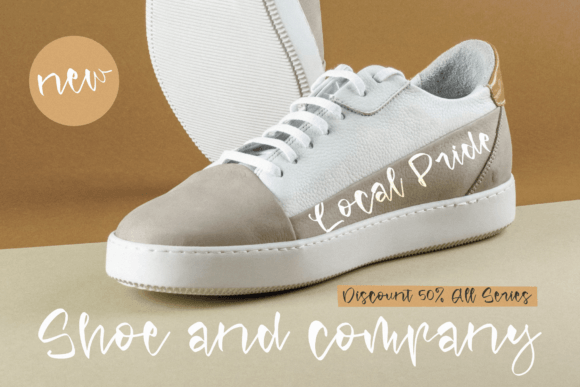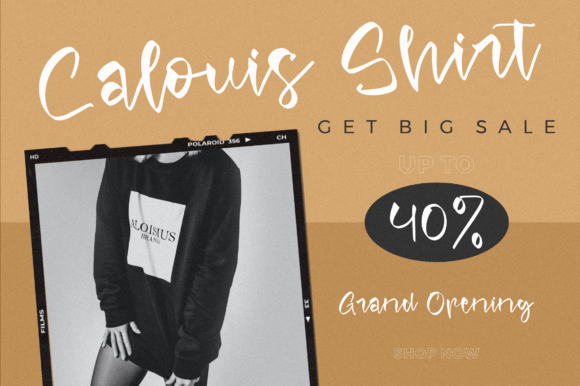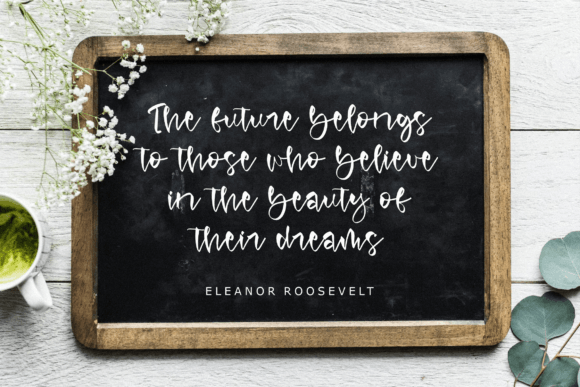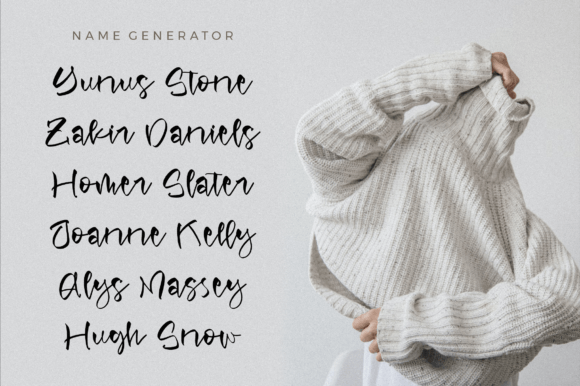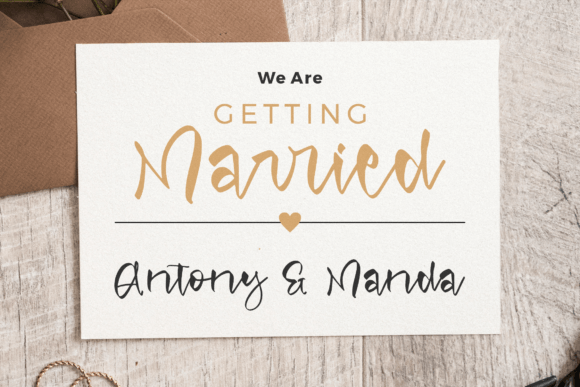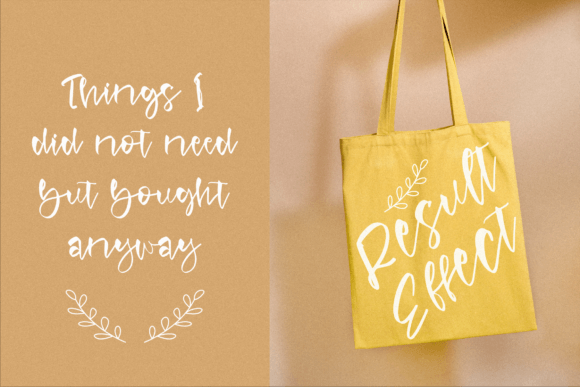
Introduction to Roseghale Balmoon Font
Have you ever found yourself in a creative rut, struggling to bring your ideas to life? Perhaps you’ve stared at a blank canvas, or fiddled with a design tool, searching for that perfect font to elevate your project. That’s exactly where the Roseghale Balmoon Font comes in – a stunning, high-quality script font designed to add a touch of elegance to your creative endeavors.
Developed by the talented team at Perspectype Studio, this font is a game-changer for designers, offering a versatile and stylish solution for any project. From logos and branding to homeware designs and product packaging, the Roseghale Balmoon Font is the perfect design resource to help you create stunning visuals that capture attention. And the best part? It’s available for free download, making it an accessible and valuable addition to any design toolkit.
Whether you’re working on a special event, creating a beautiful quote, or designing a product label, the Roseghale Balmoon Font is sure to add a touch of sophistication and creativity to your work. With its transparent background and high-quality design, this font is a must-have for any designer looking to take their projects to the next level.
Key Features of Roseghale Balmoon Font
- High-quality, unique design for creative projects, perfect for designers and artists looking for a distinctive font.
- Comes in a transparent background, allowing for seamless integration with various design elements.
- Designed with precision, with a resolution of 300 DPI, guaranteeing crisp and clear text rendering.
- Perfect for use in digital and print projects, including logos, branding materials, and advertisements.
Honest Review: Roseghale Balmoon Font
I recently stumbled upon the Roseghale Balmoon Font while searching for a unique design resource for my creative project. Initially, I was drawn to its high-quality aesthetic and the fact that it’s available for free download.
What works well: ✨ I appreciate the font’s versatility, as it can be used for a wide range of creative applications, from headings to body text. The font’s design is elegant and sophisticated, making it an excellent choice for projects that require a touch of sophistication.
Here are some of the font’s notable features:
- Transparent background, allowing for seamless integration with other design elements
- High-quality design, making it perfect for print or digital applications
Overall, I’m impressed with the Roseghale Balmoon Font, and I would definitely recommend it to designers who are looking for a high-quality, unique font for their creative projects.
Common Use Cases for Roseghale Balmoon Font
The Roseghale Balmoon Font is suitable for a variety of design projects, including logos, branding, and marketing materials. Its high-quality design and transparent background make it an ideal choice for designers seeking a versatile and creative resource.